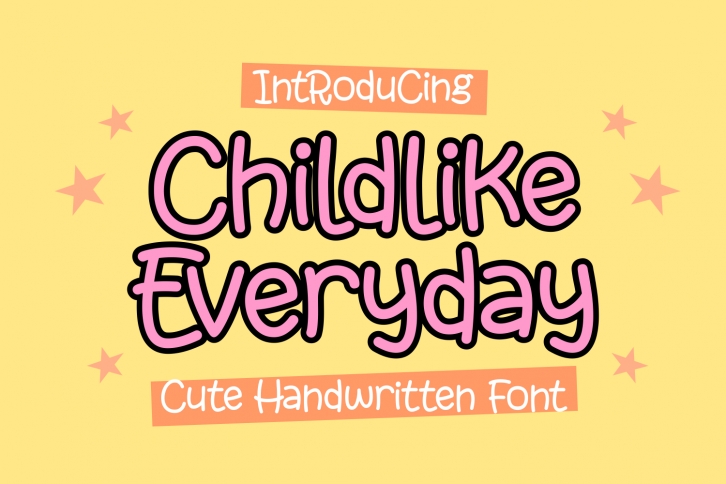
Childlike Everyday is a cute and simple handwritten font. Whether you’re using it for crafts, digital design, presentations, or making greeting cards, this font has the potential to become your favorite go-to font, no matter the occasion!